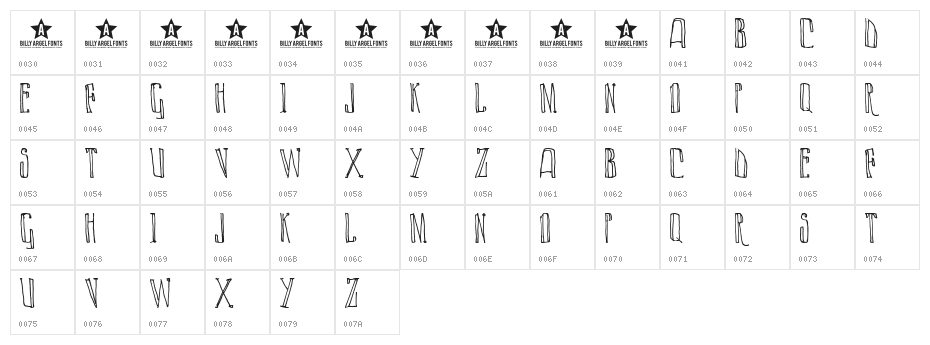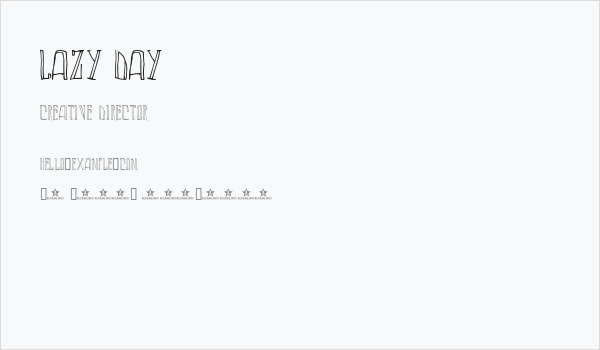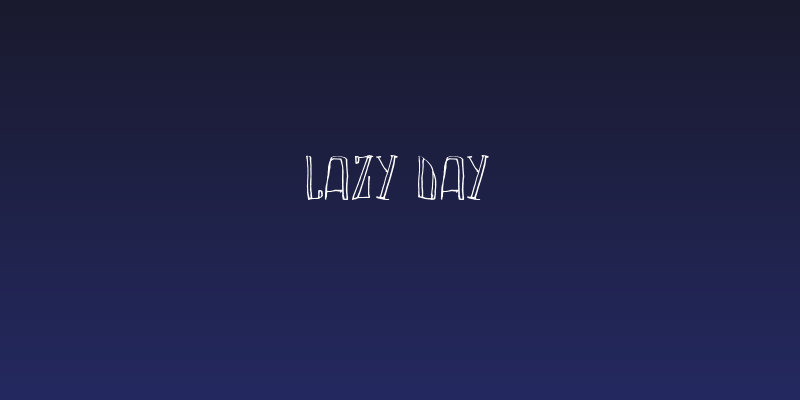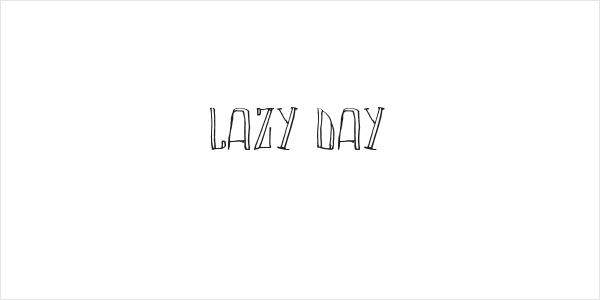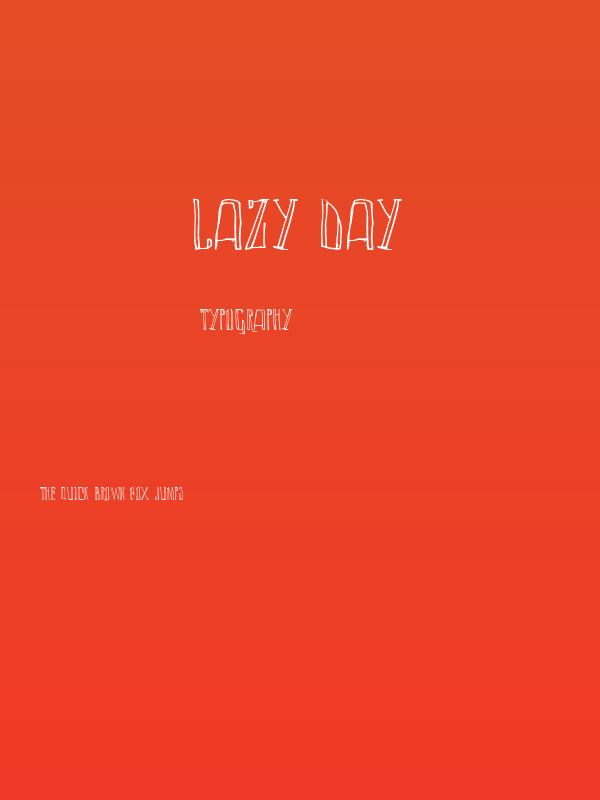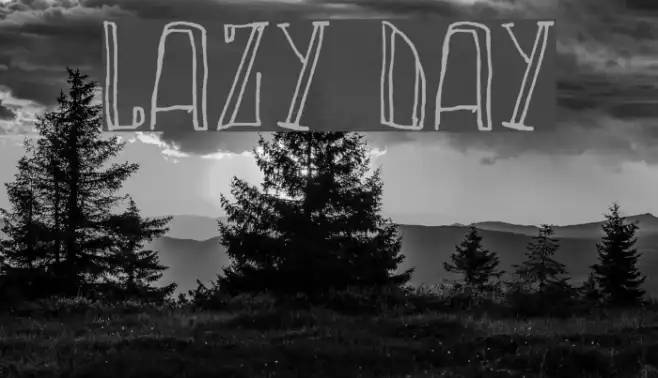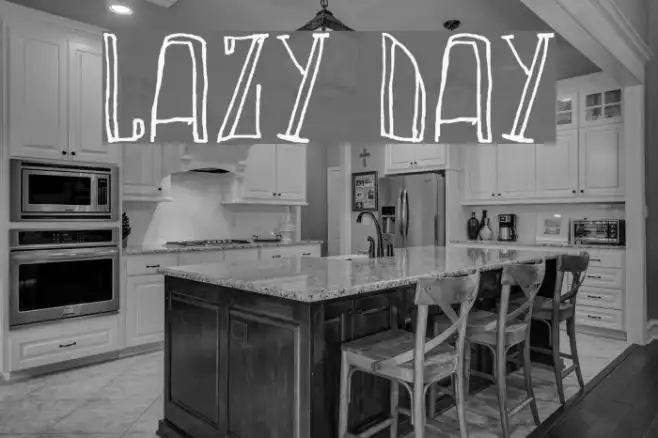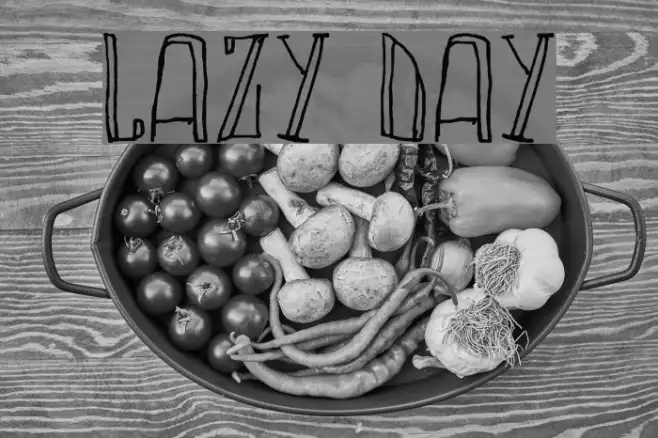
LAZY DAY Font
LAZY DAY Description
This font features a quirky and playful design with an irregular, hand-drawn appearance. The characters are tall and narrow, with uneven strokes that give it a whimsical and artistic feel. The uppercase letters are distinct with exaggerated vertical lines and slightly tilted forms, adding to the casual and informal style. The font's unique personality makes it stand out, offering a creative and fun aesthetic that is perfect for projects needing a touch of individuality and charm.
| Overall Style | Whimsical, Artistic |
| Proposed Projects | Ideal for creative projects such as children's book covers, playful branding, artistic posters, and casual invitations. |